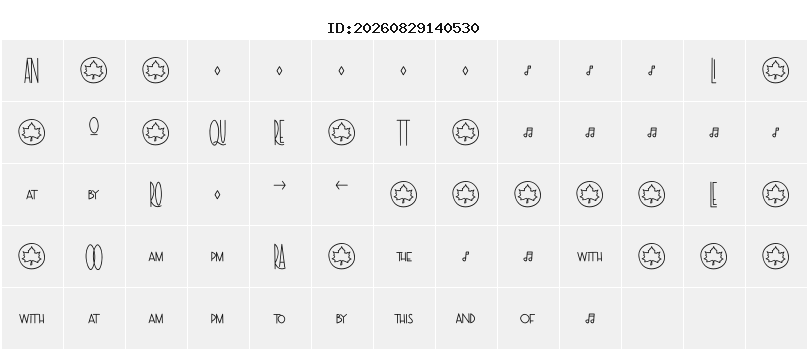
The  Symbols and Ligatures Bold Preview
• Font Name: The Symbols and Ligatures Bold
• Full Font Name: TheRa-SymbolsandLigaturesBold
• PostScript Name: TheRa-SymbolsandLigaturesBold
• Designer: Alex Tomlinson
• Manufacturer: Skyhaven Fonts
About The Symbols and Ligatures Bold.otf
The Symbols and Ligatures Bold.otf is a modern, elegant sans-serif font designed for ultimate readability and visual harmony. Perfect for branding, headlines, web design, and print materials.